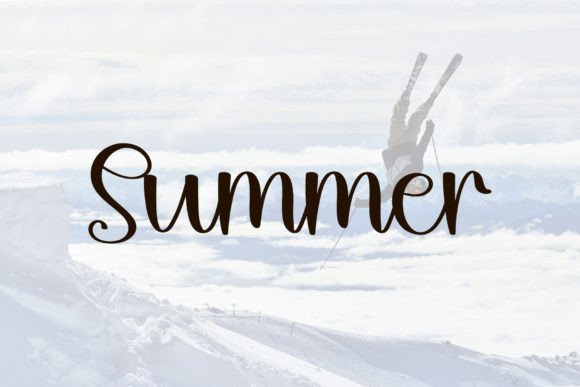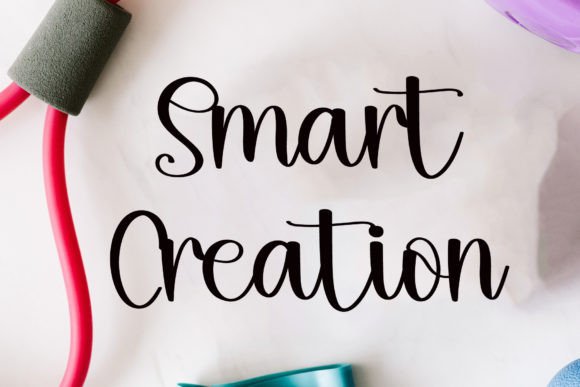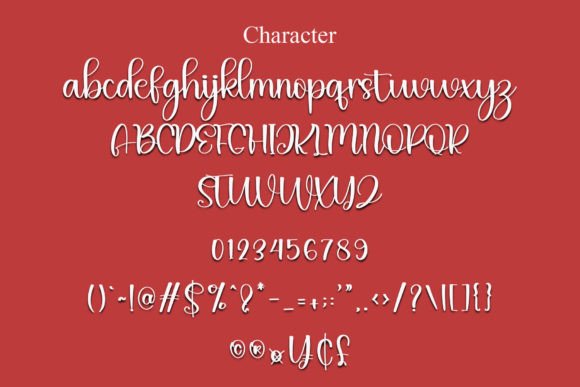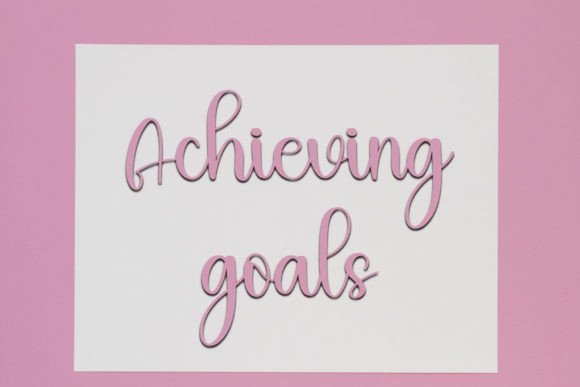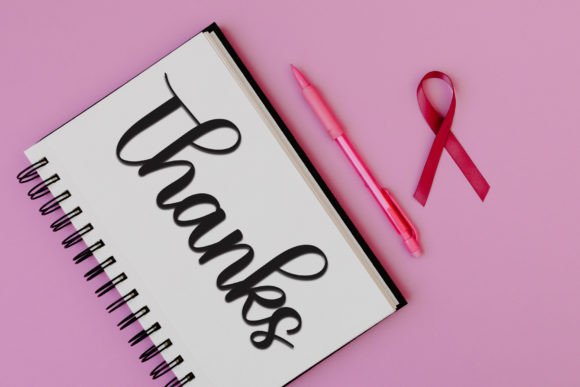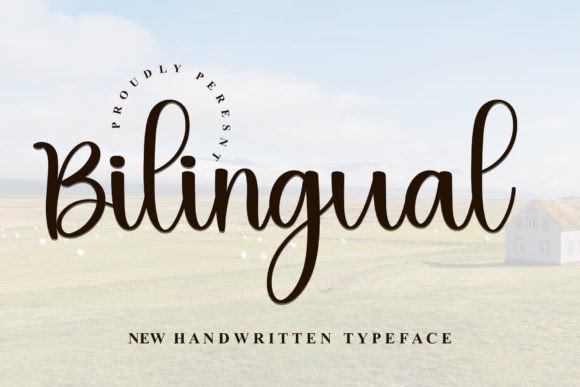
Bilingual Font: Elevate Your Designs with Elegance and Sophistication
In the world of typography, a well-crafted font can make all the difference in elevating your designs from ordinary to extraordinary. If you’re a designer, crafty DIY enthusiast, or social media influencer looking for a font that exudes class and modernity, look no further than Bilingual Font. This beautiful and refined handwritten font is perfect for a wide range of creative projects, from logos and branding to invitations, stationery, wedding designs, and social media posts.
The Beauty of Bilingual Font
Bilingual Font is a stunning example of modern typography, boasting a unique blend of elegance and sophistication. Its handwritten style gives it a personal and approachable feel, while its refined lines and curves ensure that it remains classy and upscale. Whether you’re looking to create a luxurious brand identity or a beautiful wedding invitation, Bilingual Font is the perfect choice.
One of the standout features of Bilingual Font is its versatility. Its modern and clean design makes it suitable for a wide range of applications, including:
- Logos and Branding: Create a lasting impression with a custom logo or brand identity that showcases your business’s unique personality.
- Invitations and Stationery: Add a touch of elegance to your invitations, greeting cards, and stationery with Bilingual Font’s beautiful and refined lines.
- Wedding Designs: Make your special day even more unforgettable with stunning wedding designs, including invitations, programs, and place cards.
- Social Media Posts: Elevate your social media presence with eye-catching posts and graphics that showcase your brand’s personality.
Why Choose Bilingual Font?
With so many fonts to choose from, why should you choose Bilingual Font? Here are just a few reasons:
- Unique and Exclusive: Bilingual Font’s unique design ensures that your creations stand out from the crowd.
- Elegant and Refined: Its classy and modern design makes it perfect for high-end brands and sophisticated designs.
- Easy to Read: Bilingual Font’s clean lines and curves ensure that your text is easy to read, even at small sizes.
- Highly Versatile: Use Bilingual Font for a wide range of creative projects, from digital designs to print materials.
Tips for Using Bilingual Font
To get the most out of Bilingual Font, here are a few tips to keep in mind:
- Pair it with Other Fonts: Experiment with pairing Bilingual Font with other fonts to create a unique and eye-catching design.
- Use it for Headings and Titles: Bilingual Font’s elegant design makes it perfect for headings and titles, adding a touch of sophistication to your designs.
In conclusion, Bilingual Font is a beautiful and refined handwritten font that is perfect for designers, crafters, and social media enthusiasts looking to elevate their designs. Its unique blend of elegance and sophistication makes it suitable for a wide range of creative projects, from logos and branding to invitations, stationery, and social media posts. With its versatility, ease of use, and stunning design, Bilingual Font is sure to become a favorite in your font collection.